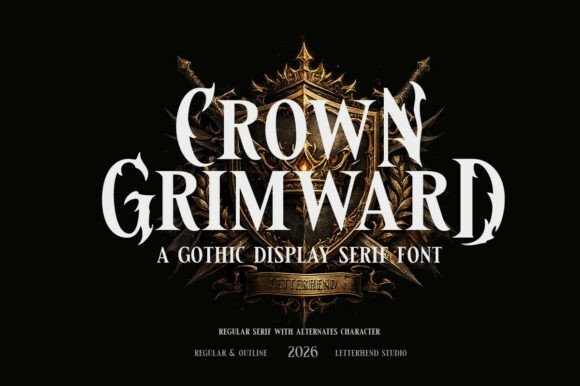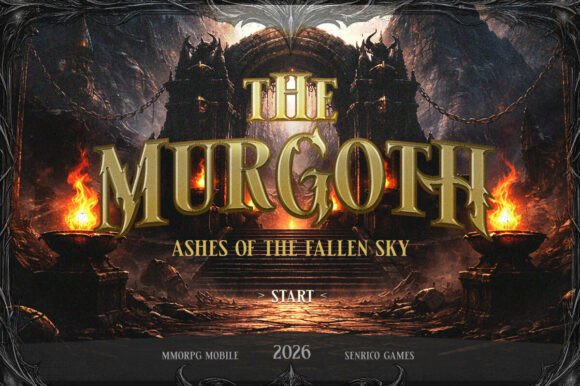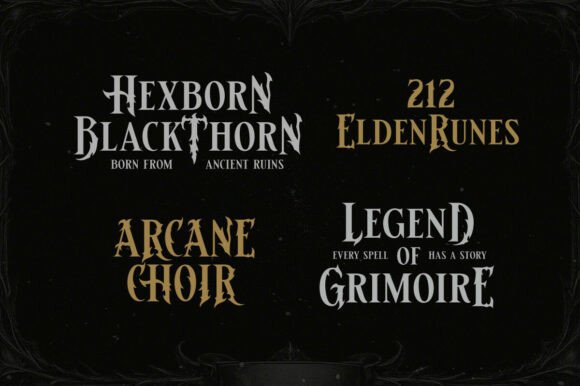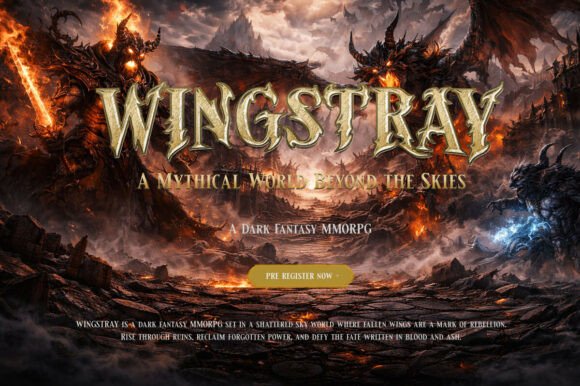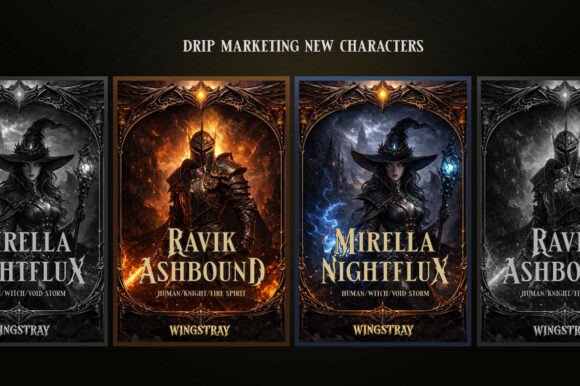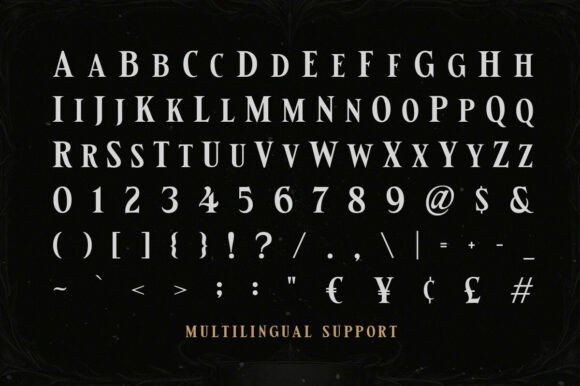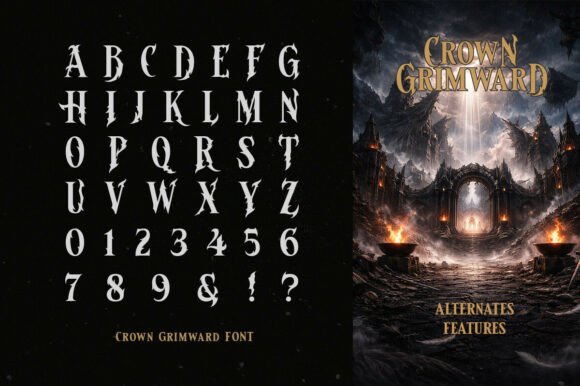
Unleashing the Dark Majesty of the Crown Grimward Font
Have you ever sat in a dimly lit room, surrounded by the musty scent of old tomes and the flickering light of candles? The air is thick with anticipation as you delve into a world of fantasy and adventure. It’s in these moments that the Crown Grimward Font comes alive, transporting you to a realm of medieval grandeur and Gothic mystery.
Designed specifically for massive gothic games, the Crown Grimward Font is a dark, dramatic serif style that commands attention and sets the tone for an immersive experience. Its heavy, commanding letters evoke a sense of power and majesty, making it the perfect choice for game titles, fantasy game branding, and cinematic posters.
For designers, the Crown Grimward Font is a valuable tool in crafting an epic atmosphere that draws viewers in and refuses to let go. Its versatility and dramatic flair make it an essential addition to any design arsenal, elevating projects to new heights of creativity and visual impact.
Crown Grimward Font Key Features
- Font Family: Crown Grimward, a fantasy font designed for medieval-inspired projects.
- Unique Characteristics: Crown Grimward features intricate details, such as ornaments and swashes, to add a touch of elegance to your designs.
Crown Grimward Font Review
Overall, I have mixed feelings about the Crown Grimward font. Here are my thoughts on what works well and what doesn’t.
- The font has a unique, gothic-inspired aesthetic that’s perfect for horror-themed designs or projects that need a touch of mystery.
- The bold weight of the font makes it great for headlines and titles, where you want to grab the viewer’s attention.
- The font is highly customizable, with a wide range of font sizes, colors, and styles available.
- The font can be difficult to read at smaller font sizes, which may make it less suitable for body text.
- The font’s Gothic-inspired style may not be to everyone’s taste, and some users may find it too ornate or over-the-top.
- The font is not as versatile as some other fonts, and may not be suitable for a wide range of design projects.
Overall, I think the Crown Grimward font is a solid choice for designers who want to add a touch of drama and mystery to their projects. However, it may not be the best choice for every design task, and may require some careful consideration and customization to get the most out of it.
The Crown Grimward font is a great choice for titles, headings, and other display text. It’s particularly well-suited for fantasy and sci-fi designs.
For best results, use the font at a large size (at least 24 points) and in bold or italic styles.
Experiment with different font combinations to create a unique look.